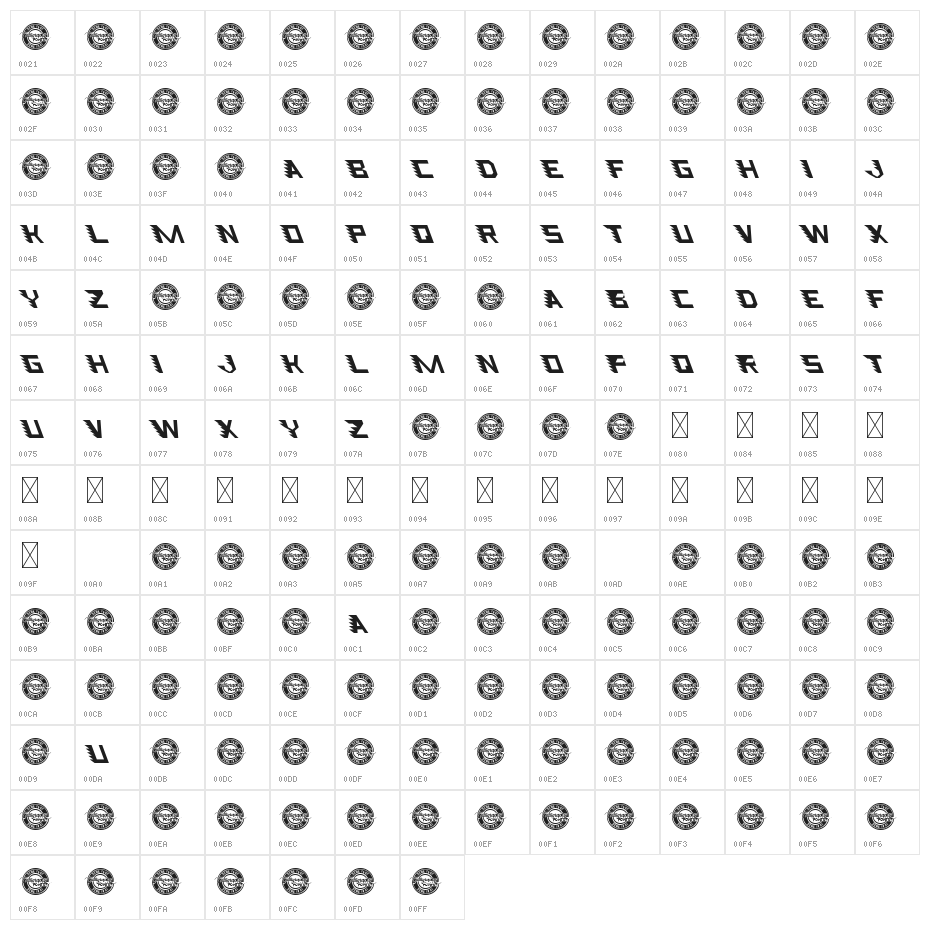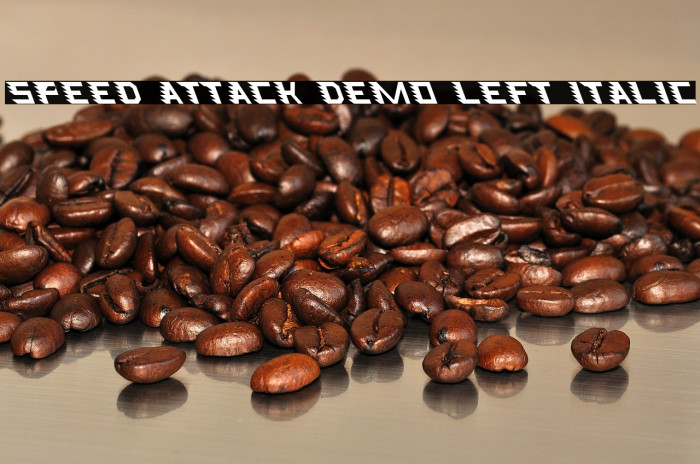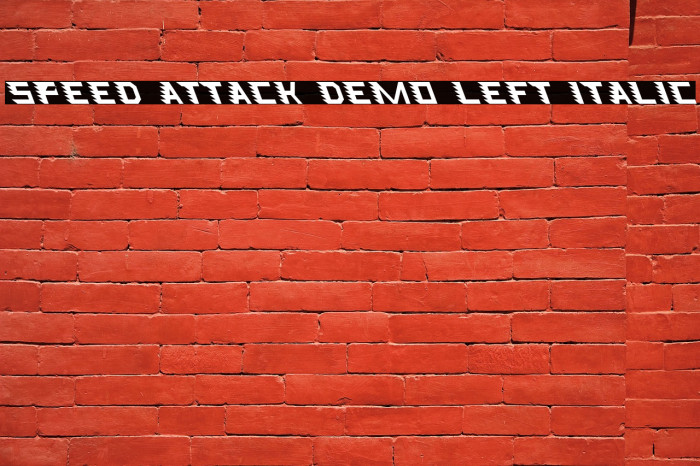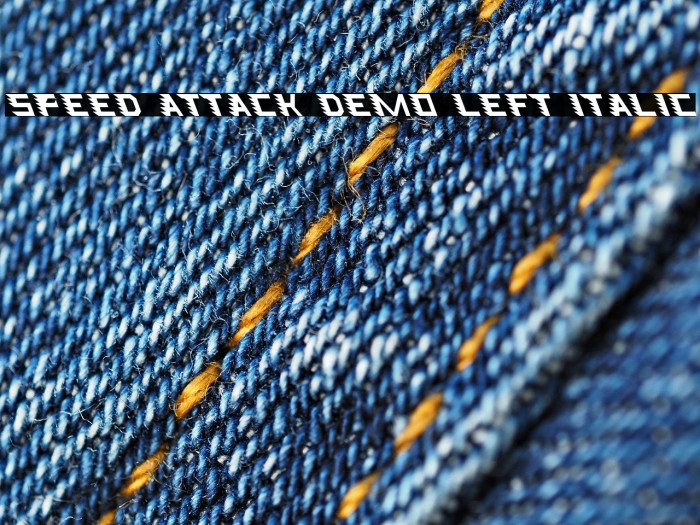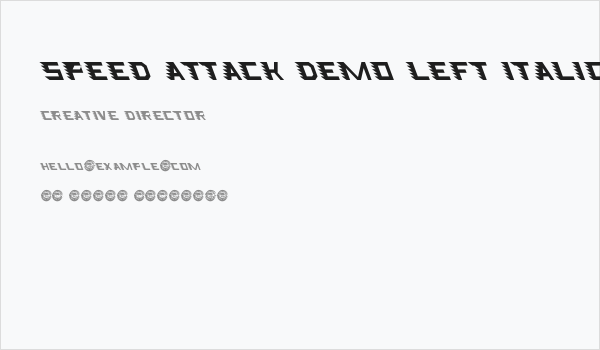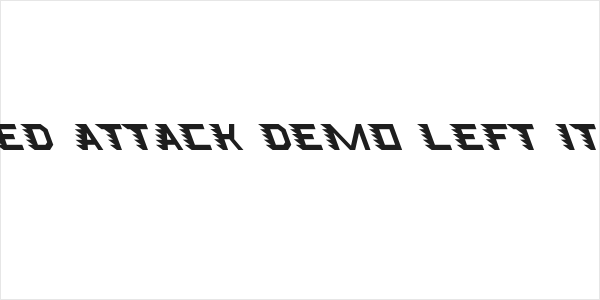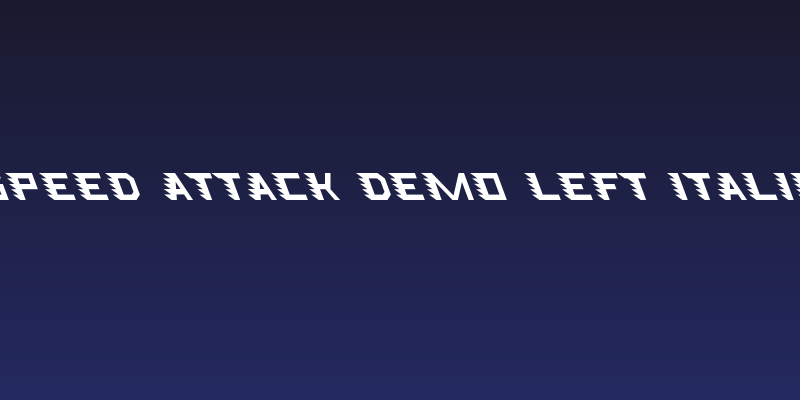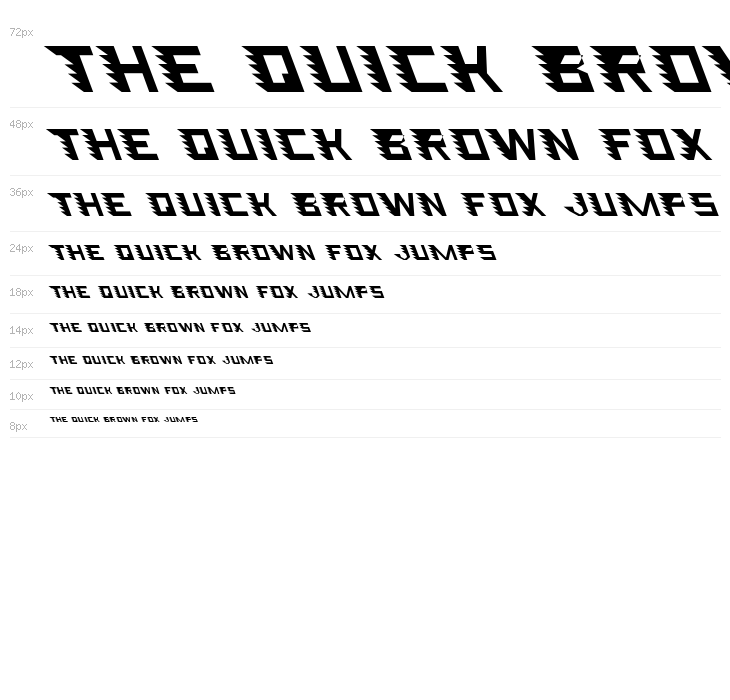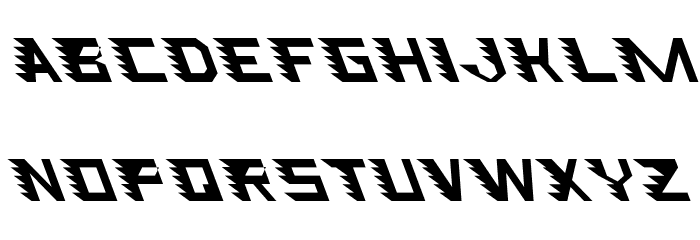
Speed Attack Demo Left Italic Font
Speed Attack Demo Left Italic Description
This font features a bold and aggressive design with sharp, angular edges that give it a dynamic and energetic appearance. The letters are slanted to the left, enhancing the sense of movement and speed. Each character is crafted with a unique, jagged style that resembles the look of speed lines or motion blur, making it ideal for projects that require a sense of urgency or action. The uppercase letters maintain a consistent height, while the overall design is highly stylized, focusing on creating a visual impact. This font is perfect for attention-grabbing headlines or branding that needs to convey strength and dynamism.
| Proposed Projects | Suitable for sports branding, action movie posters, video game titles, and dynamic logos. |